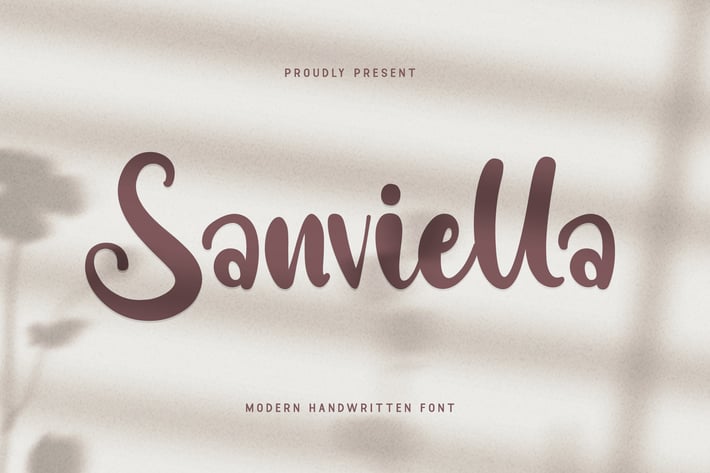
Sanviella - A Modern Handwritten Font
Sanviella is a modern handwritten font that captures the essence of personal touch and creativity. With its fluid strokes and natural flow, Sanviella adds a unique and authentic feel to your design projects. Perfect for wedding invitations, greeting cards, social media graphics, and branding, this font brings a touch of elegance and individuality to every piece of work.
Designed to mimic the intricacies of real handwriting, Sanviella stands out with its delicate curves and expressive letterforms. Its versatile nature makes it suitable for both casual and formal applications, providing a seamless blend of style and readability. Whether you're designing a heartfelt note, a stylish logo, or an eye-catching headline, Sanviella ensures your message is conveyed with charm and personality.
Embrace the beauty of handwritten typography with Sanviella, a font that combines modern aesthetics with the warmth of personal expression. Its distinctive character and versatility make it an essential addition to any designer's toolkit. Elevate your designs with Sanviella and let your creativity flow effortlessly.
Sanviella is a modern handwritten font that captures the essence of personal touch and creativity. With its fluid strokes and natural flow, Sanviella adds a unique and authentic feel to your design projects. Perfect for wedding invitations, greeting cards, social media graphics, and branding, this font brings a touch of elegance and individuality to every piece of work.
Designed to mimic the intricacies of real handwriting, Sanviella stands out with its delicate curves and expressive letterforms. Its versatile nature makes it suitable for both casual and formal applications, providing a seamless blend of style and readability. Whether you're designing a heartfelt note, a stylish logo, or an eye-catching headline, Sanviella ensures your message is conveyed with charm and personality.
Embrace the beauty of handwritten typography with Sanviella, a font that combines modern aesthetics with the warmth of personal expression. Its distinctive character and versatility make it an essential addition to any designer's toolkit. Elevate your designs with Sanviella and let your creativity flow effortlessly.